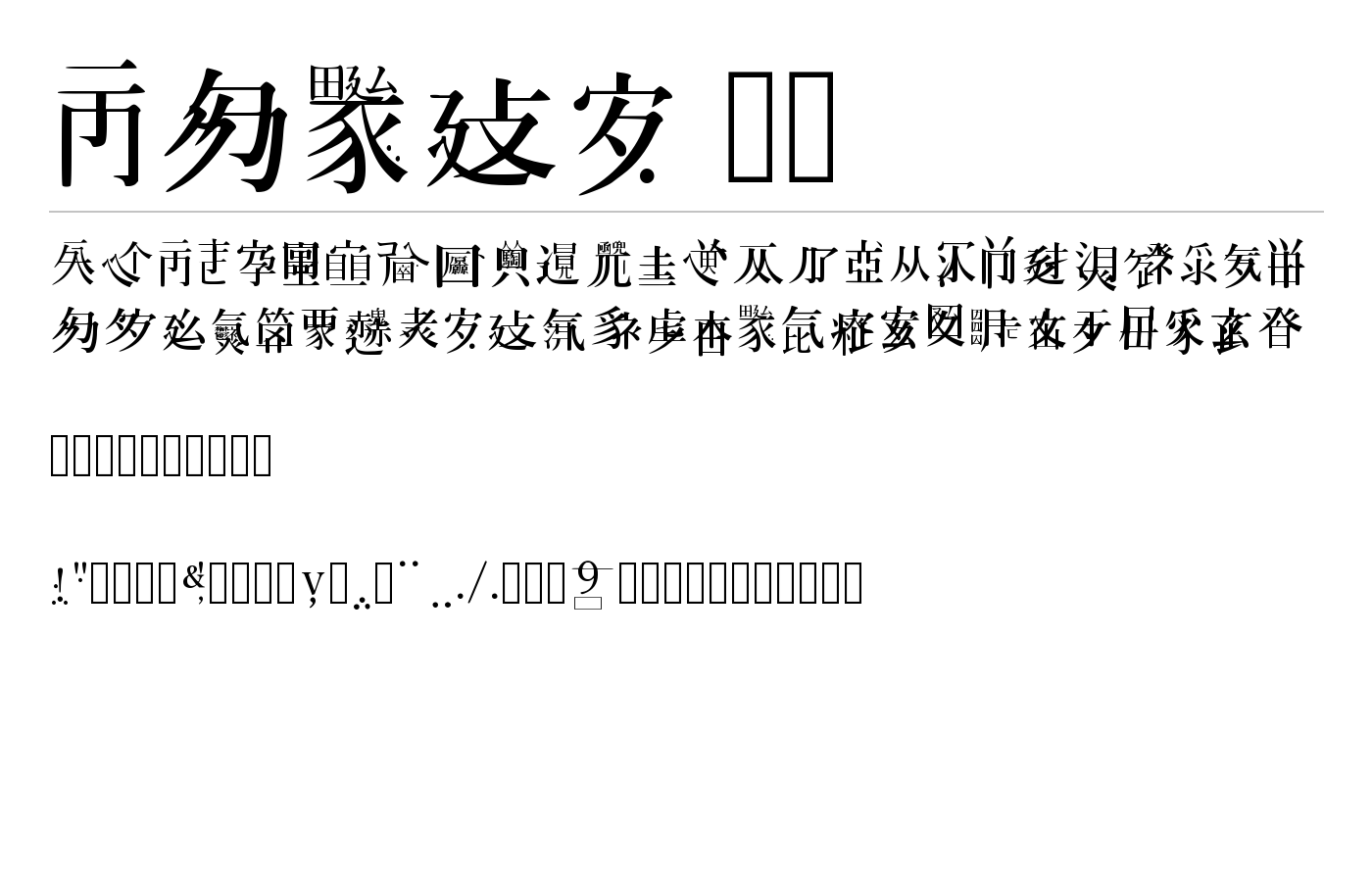
Caoji 20 is a refined serif font with a modern, elegant feel, characterized by its high contrast between thick and thin strokes and sharp, bracketed serifs. Its balanced proportions and clear structure make it suitable for sophisticated editorial layouts, luxury branding, and refined headlines where readability and style are key. This font conveys a sense of tradition and formality while maintaining a contemporary elegance that works well across print and digital mediums.